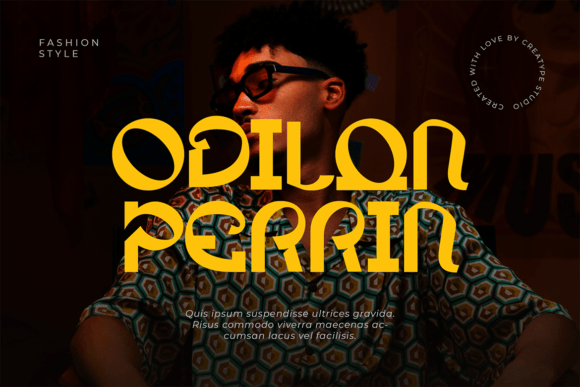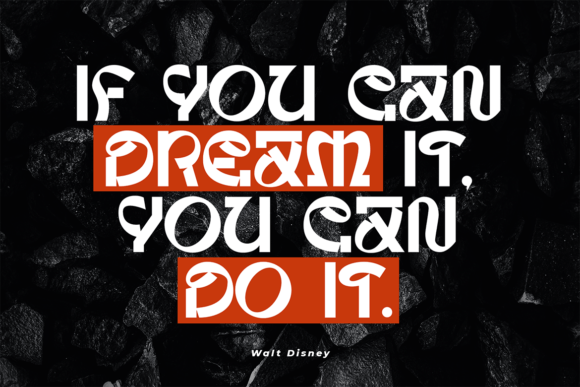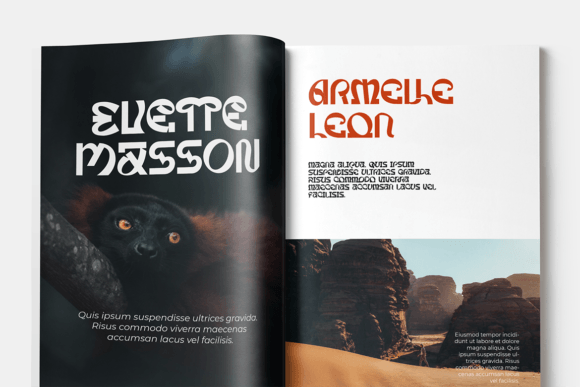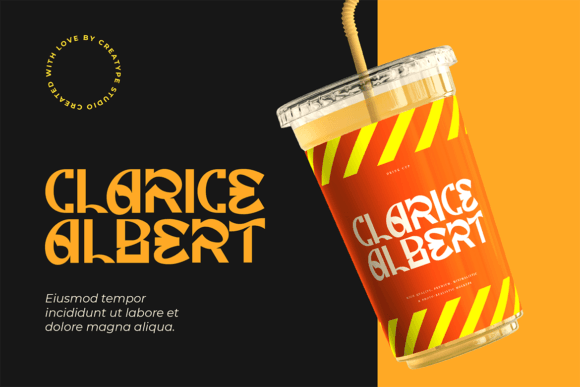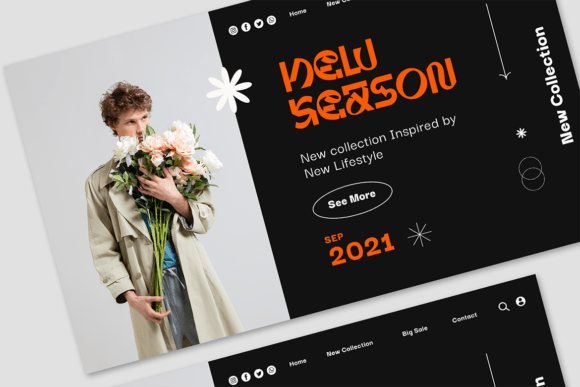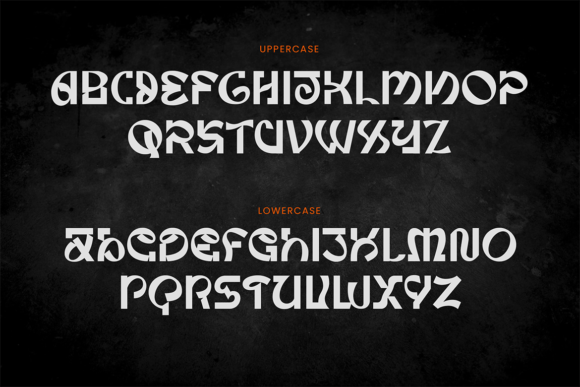
Curtis Font: The Modern Display Typeface for Bold Branding
In the world of typography, a font can make or break the visual identity of a brand. For designers and crafters looking to add a touch of personality to their projects, Curtis Font is an excellent choice. This modern display typeface is bold, quirky, and perfect for showcasing the charm of your brand with a powerful presence.
What is Curtis Font?
Curtis Font is a contemporary display typeface designed to make a statement. Its bold and eye-catching design makes it ideal for a wide range of applications, from branding projects and logos to wedding designs, social media posts, and advertisements. With its unique and quirky charm, Curtis Font is sure to grab attention and leave a lasting impression.
Key Features of Curtis Font
- Bold and Powerful Presence: Curtis Font is designed to make a statement with its bold and powerful presence. It’s perfect for headlines, titles, and any other text that needs to stand out.
- Quirky Charm: This modern display typeface has a quirky charm that adds a touch of personality to any project. It’s perfect for brands that want to showcase their unique character.
- Handwriting Taste: Curtis Font has a handwriting-like feel that adds a touch of warmth and personality to any project. It’s perfect for projects that need a personal touch.
- Versatile: Curtis Font is versatile and can be used for a wide range of applications, from branding projects and logos to wedding designs, social media posts, and advertisements.
Use Cases for Curtis Font
Curtis Font is perfect for a wide range of projects, including:
- Branding Projects: Use Curtis Font to create a bold and eye-catching logo that showcases the personality of your brand.
- Wedding Designs: Add a touch of elegance and sophistication to your wedding designs with Curtis Font.
- Social Media Posts: Use Curtis Font to create eye-catching social media posts that grab attention and drive engagement.
- Advertisements: Curtis Font is perfect for advertisements that need to stand out and make a statement.
- Product Packaging: Use Curtis Font to add a touch of personality to your product packaging and make it stand out on store shelves.
- Product Designs: Curtis Font is perfect for product designs that need a bold and eye-catching typography.
- Labels: Use Curtis Font to create eye-catching labels that showcase the personality of your brand.
- Photography: Add a touch of elegance and sophistication to your photography with Curtis Font.
- Watermark: Use Curtis Font to create a bold and eye-catching watermark that showcases the personality of your brand.
- Invitation: Curtis Font is perfect for invitations that need a touch of elegance and sophistication.
- Stationery: Use Curtis Font to create eye-catching stationery that showcases the personality of your brand.
Why Choose Curtis Font?
There are many reasons why designers and crafters should choose Curtis Font for their projects. Here are a few:
- Unique and Quirky Design: Curtis Font has a unique and quirky design that adds a touch of personality to any project.
- Bold and Powerful Presence: This modern display typeface has a bold and powerful presence that makes it perfect for headlines and titles.
- Versatile: Curtis Font is versatile and can be used for a wide range of applications.
- Easy to Read: Despite its bold design, Curtis Font is easy to read and understand.
In conclusion, Curtis Font is an excellent choice for designers and crafters looking to add a touch of personality to their projects. With its bold and powerful presence, quirky charm, and handwriting-like feel, Curtis Font is perfect for a wide range of applications. Whether you’re working on a branding project, wedding design, social media post, or advertisement, Curtis Font is sure to make a statement and leave a lasting impression.